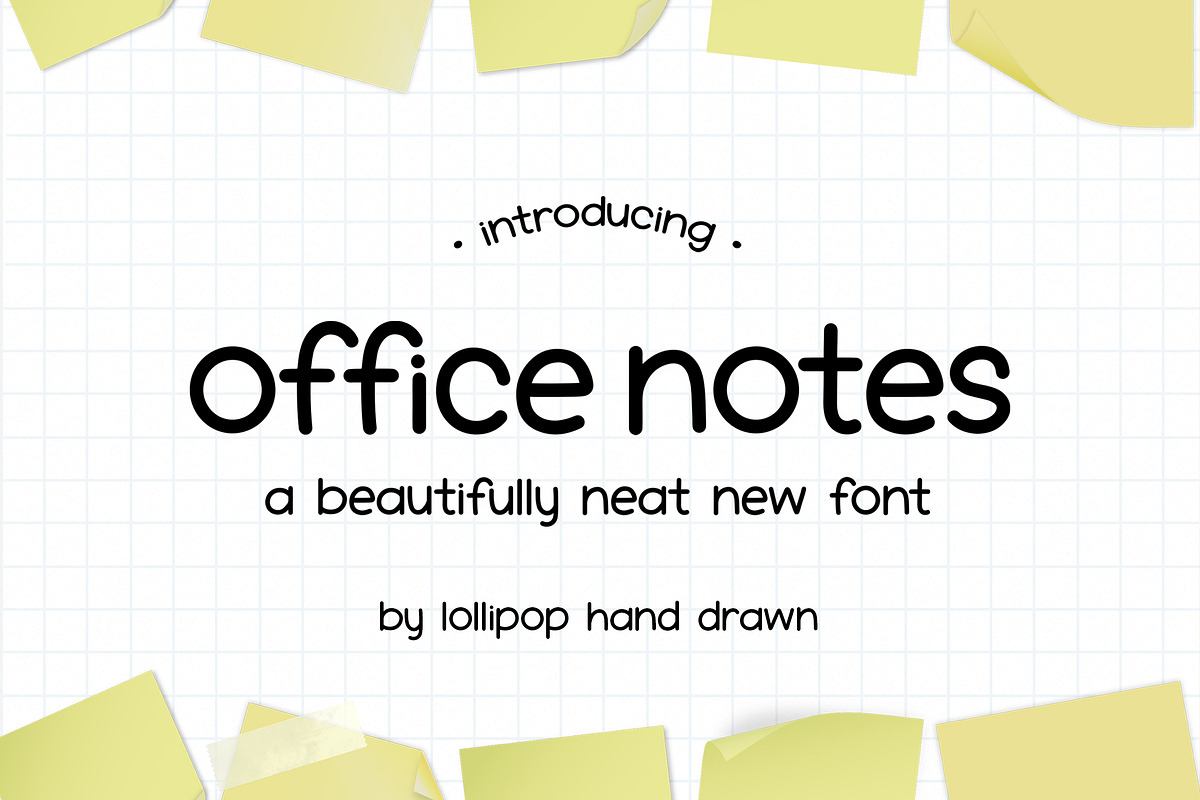
The Office Notes Font Free Download is a clean and modern handwritten typeface designed to add a casual yet professional touch to your projects. With its neat and organized letterforms, this font mimics the look of handwritten notes, making it perfect for office-themed designs, presentations, and personal branding. Whether you're designing for a corporate setting, creating informal messages, or working on creative projects, Office Notes brings a humanized feel to any design.
Office Notes Font Free Download is ideal for designers seeking a font that combines professionalism with a personal touch. Its handwritten style is perfect for invitations, greeting cards, social media posts, and more. Download this versatile font today and make your projects stand out with its unique, approachable design!